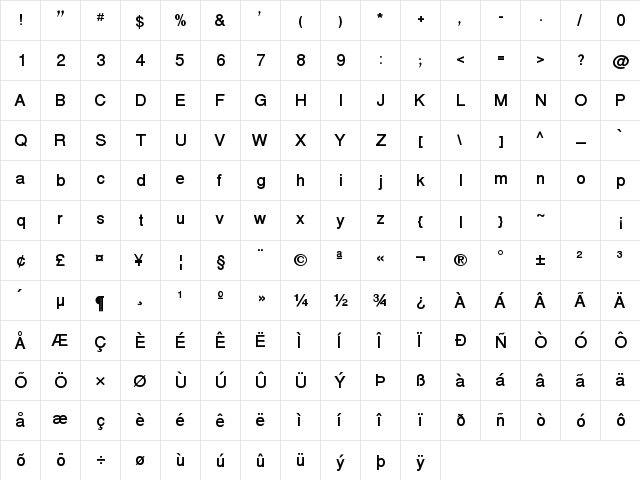
WinSoft Pro Medium
Design Context for WinSoft Pro Typeface
WinSoft Pro offers clean, dependable letterforms without strong stylistic allegiance, making it a practical choice for designers who need flexibility.
Pro Tip: Use WinSoft Pro in both headline and body roles to test its range before committing to a single application.